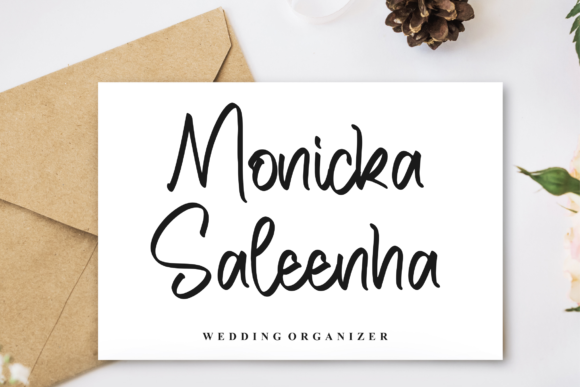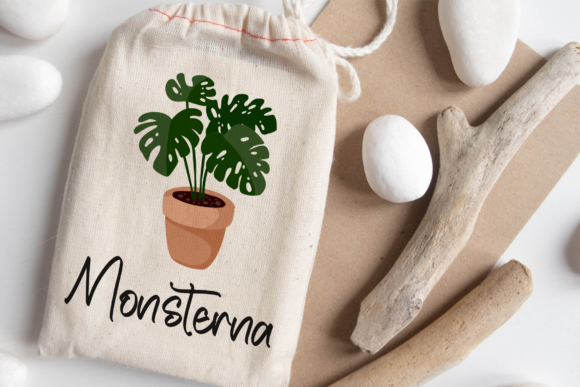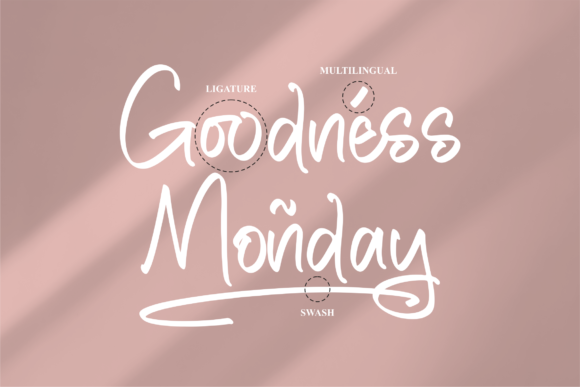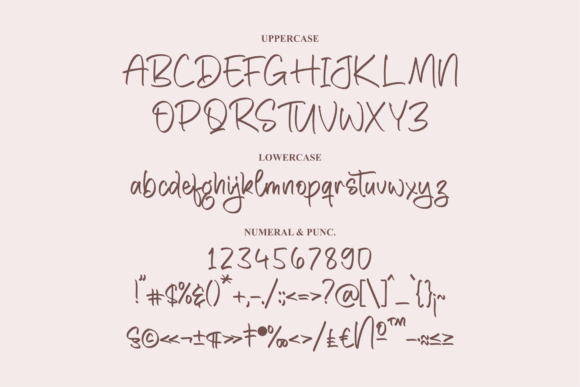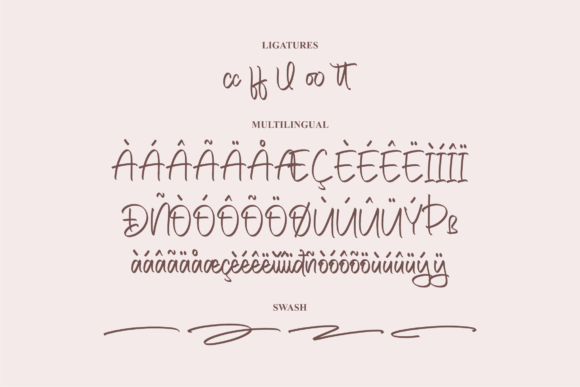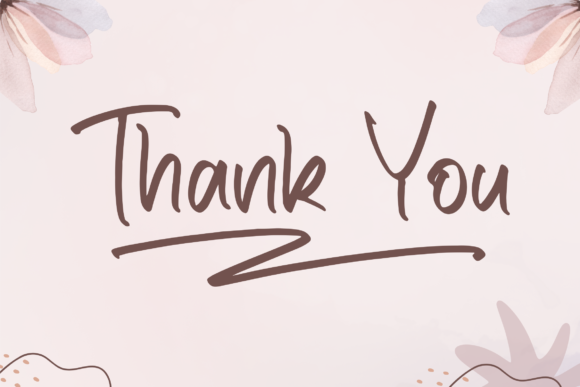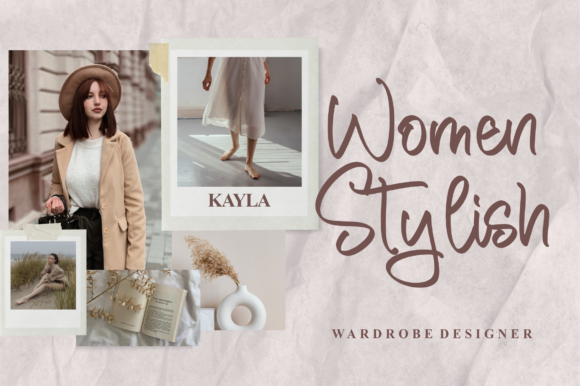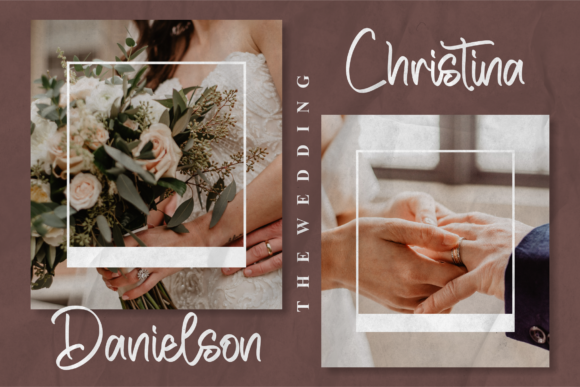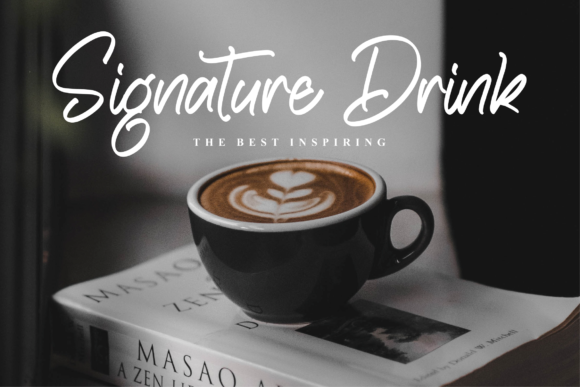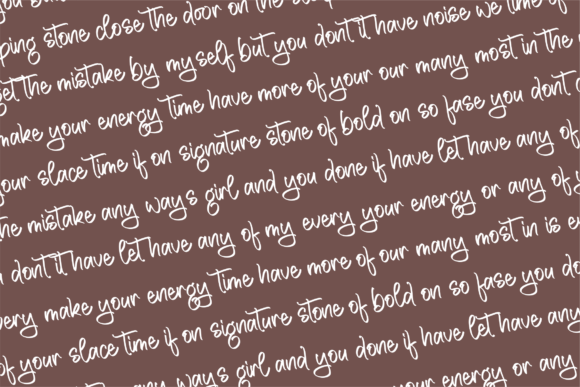
Delicato Font
Delicato is an exquisite script font that effortlessly combines fashion and delicacy to create a truly captivating design. With its elegant and graceful letterforms, Delicato is a perfect choice for a wide range of creative projects, offering versatility and beauty that enhance any design you undertake.
This font’s fashionable and delicate nature makes it a standout option for various branding projects. Whether you’re working on logos, labels, or other branding materials, Delicato adds a touch of sophistication and charm that elevates your brand identity. Its intricate strokes and carefully crafted details contribute to a sense of refinement that can enhance your brand’s overall image.
In addition to branding, Delicato is also a fantastic choice for projects that require a hint of elegance and personal touch. Its flowing and graceful lines make it a great fit for photography watermarks, adding a signature look to your images and helping to protect your work while maintaining a sense of style.
Special events and occasions can benefit greatly from Delicato’s beautiful script taste. Whether it’s wedding invitations, greeting cards, or other event-related materials, this font exudes a sense of sophistication and romance that complements the sentimentality of the occasion. Its PUA encoding ensures that you have easy access to a variety of glyphs and swashes, allowing you to embellish your designs with intricate details.
Delicato’s delicate and refined appearance is well-suited for various types of digital and printed media. Its ability to adapt to different contexts and projects ensures that it remains a valuable asset in your font library. Whether you’re designing for online platforms, printed materials, or both, Delicato’s timeless elegance adds a touch of luxury to your creations.
The PUA encoding feature is a valuable addition that empowers you to customize your designs with ease. Access to a wide array of glyphs and swashes means you can experiment with different stylistic elements, allowing you to create unique and visually appealing compositions that stand out.
In summary, Delicato is a fashionable and delicate script font that brings a touch of elegance and sophistication to your projects. Its versatility and PUA encoding feature make it an ideal choice for logos, branding, labels, special events, and more. With Delicato in your design toolkit, you have the means to craft stunning and memorable designs that resonate with your audience and leave a lasting impression.